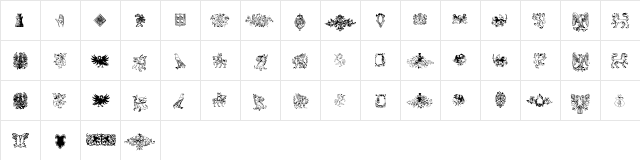
IntellectaHeraldics Regular
| Foundry | Paulo W, IntellectaDesign |
Design Context for IntellectaHeraldics Typeface
IntellectaHeraldics is a composed and adaptable typeface that performs quietly and consistently across a wide range of design contexts.